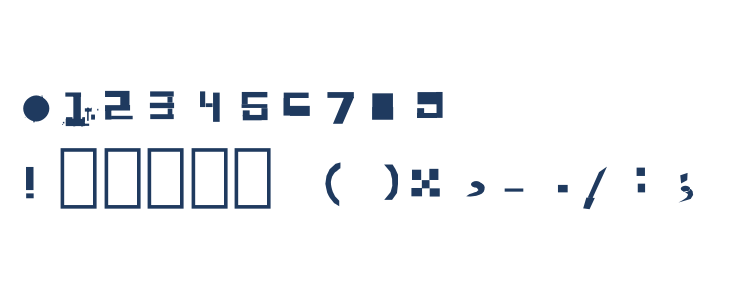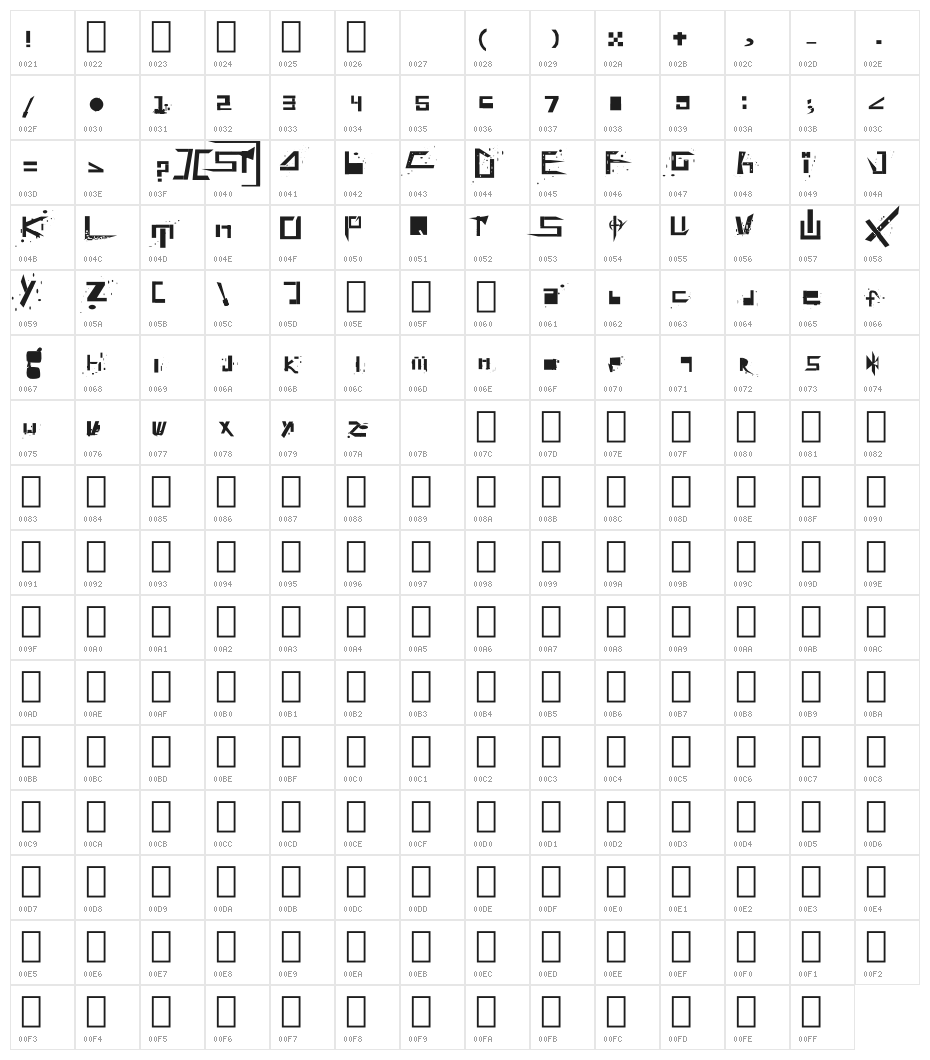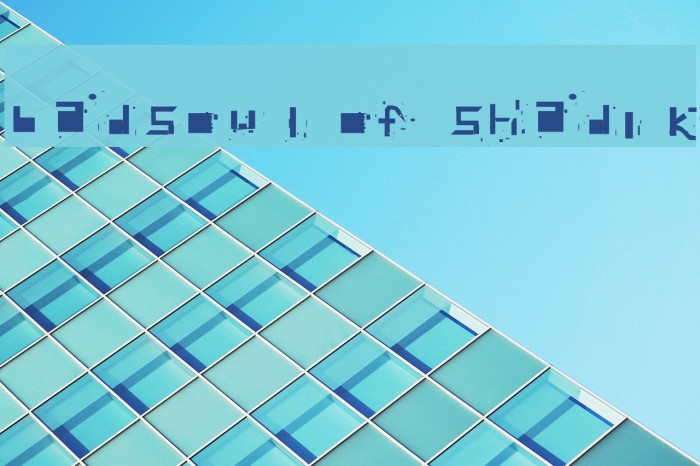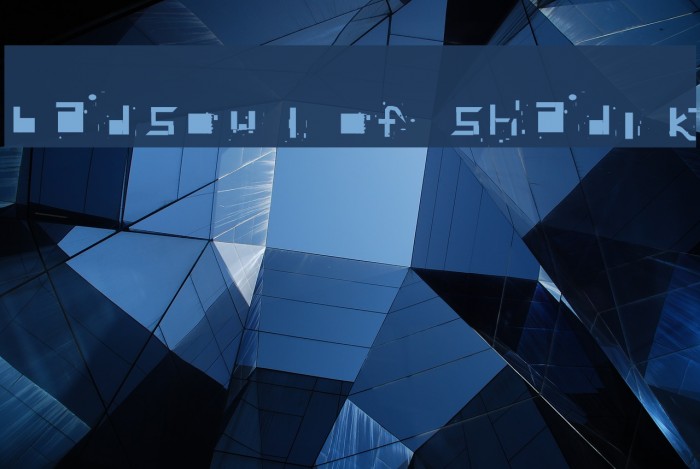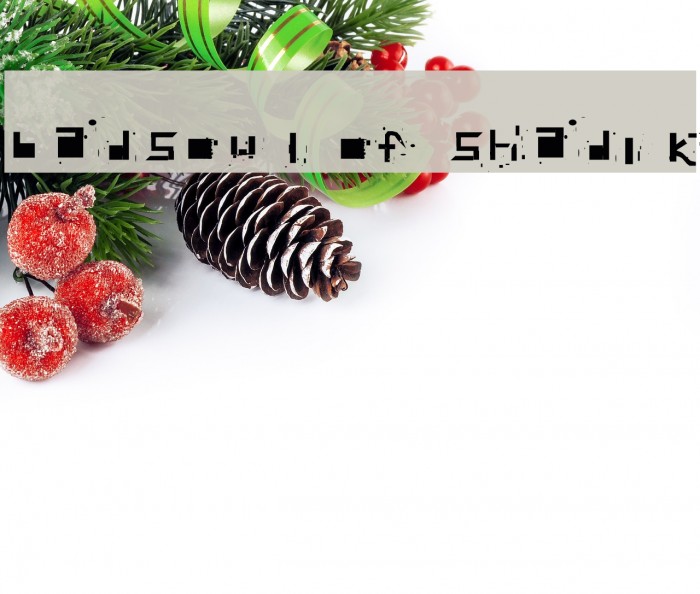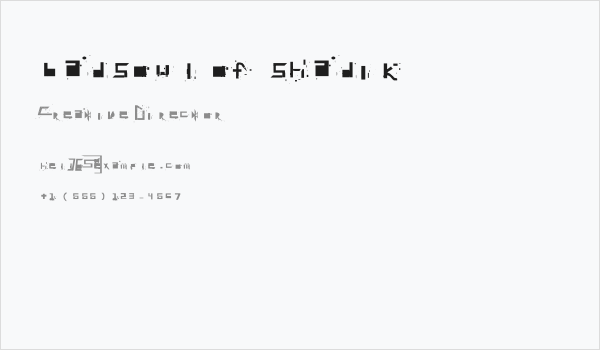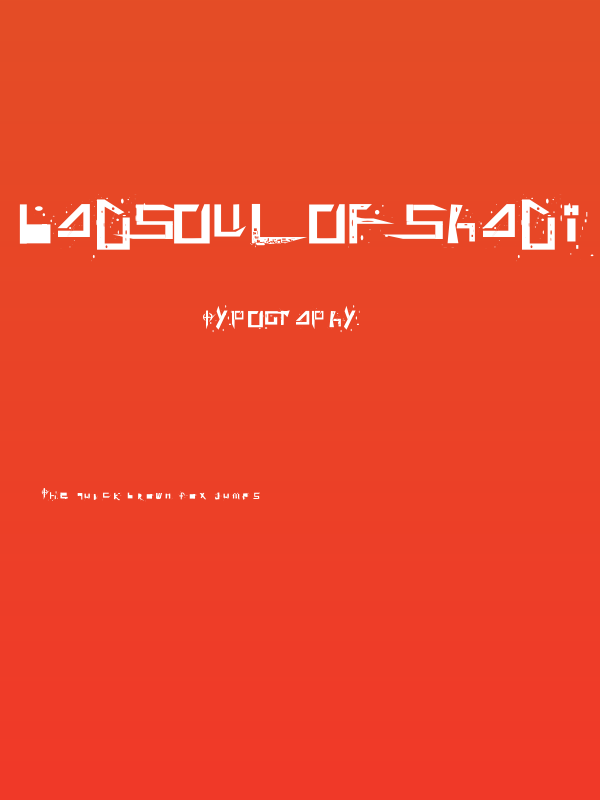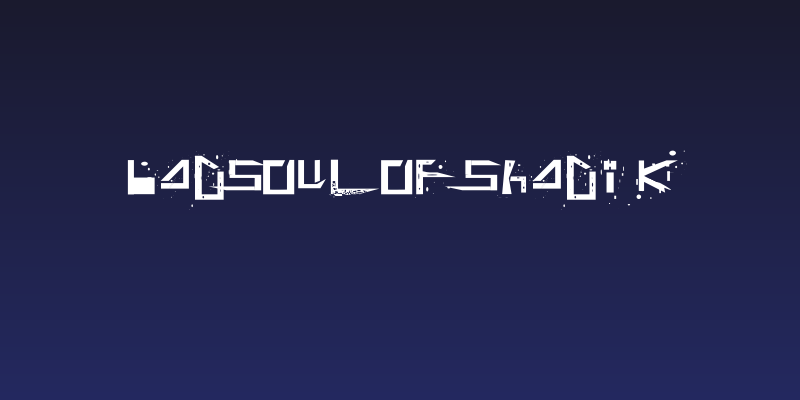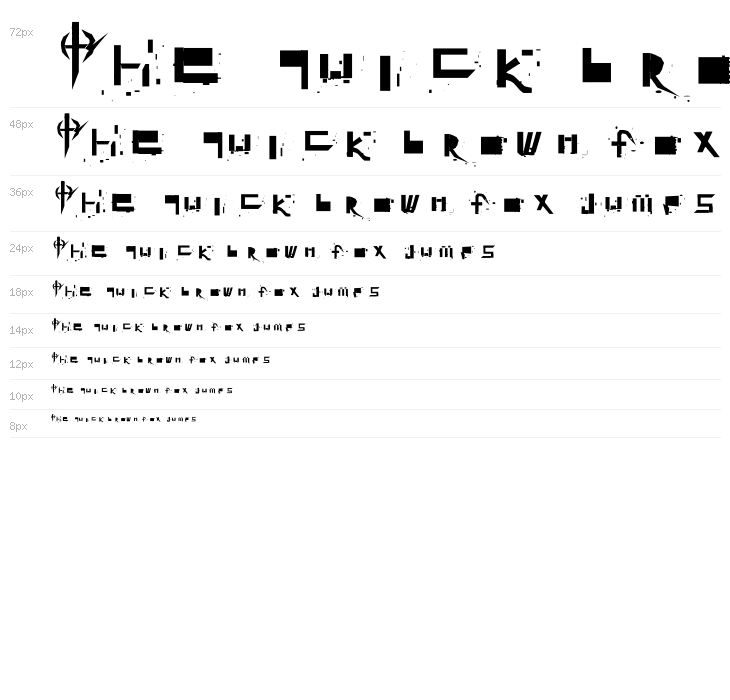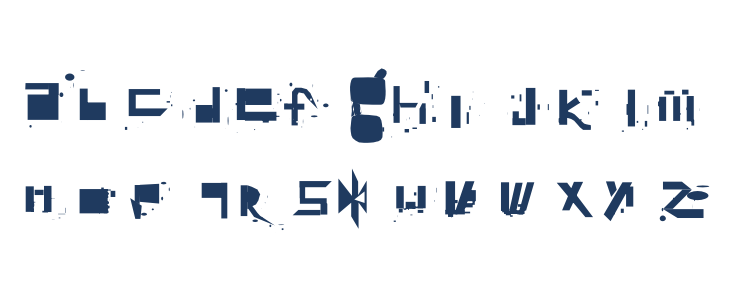
badsoul of shadik Font
badsoul of shadik Description
This font features a highly stylized and abstract design, characterized by sharp angles, geometric shapes, and a distressed texture that gives it a gritty, urban feel. The uppercase letters are bold and striking, with unique cuts and slashes that create a sense of movement and energy. The lowercase letters maintain the same edgy aesthetic, though they are slightly more compact. Numbers are blocky and consistent with the overall theme, while special characters are creatively integrated, adding to the font's distinctive personality. This font's unconventional style makes it stand out, ideal for projects that require a bold, rebellious look.
| Overall Style | Modern, Urban, Edgy |
| Proposed Projects | Ideal for music album covers, streetwear branding, video game titles, or any project seeking a bold, edgy aesthetic. |